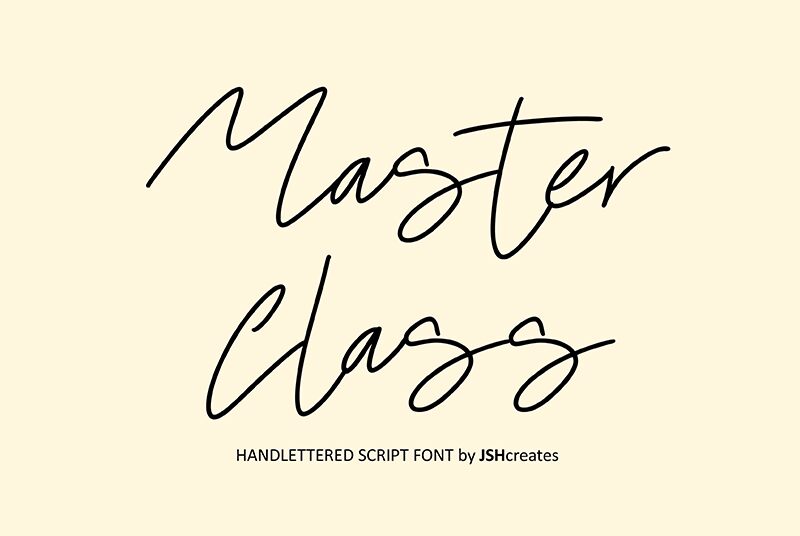
Master Class font by JSH creates is an elegant, flowing handwritten font defined by fall and rise strokes and fluid variations in thickness. This light-weight typeface has a sophisticated and expressive design, making it perfect for projects that require drawn attention or viewer engagement.
Use Master Class font in packaging designs, posters, advertisements, branding designs with logos or business cards. Other possible uses include magazines/book covers, banners, promotional videos or posters.